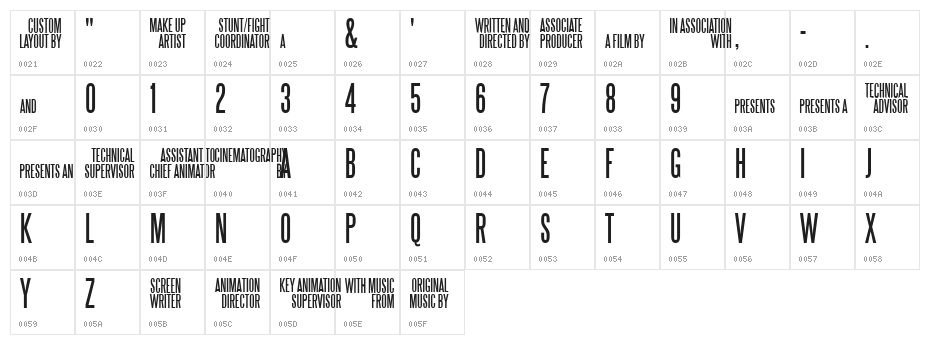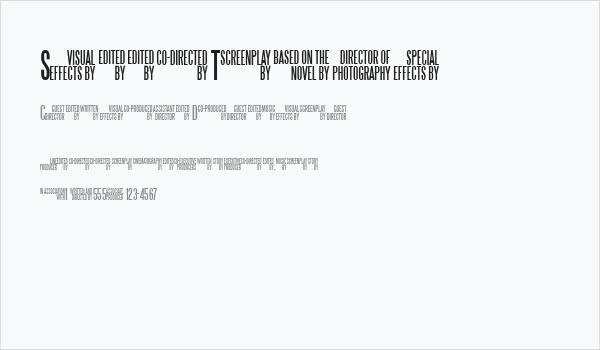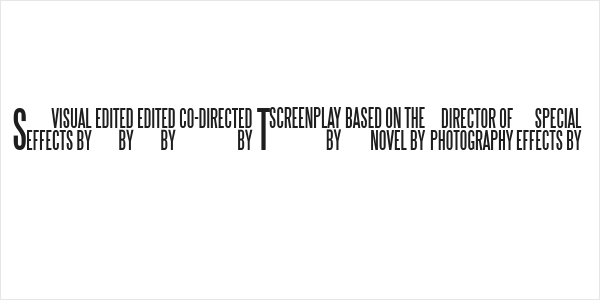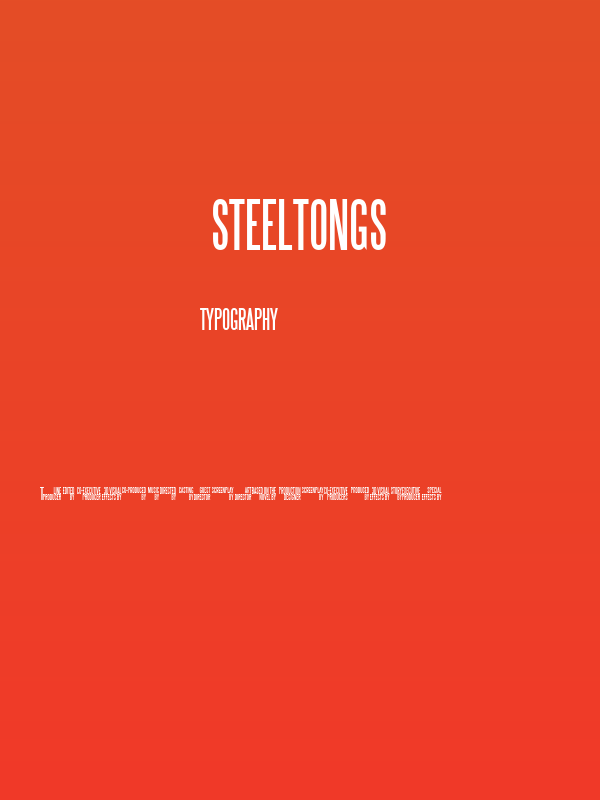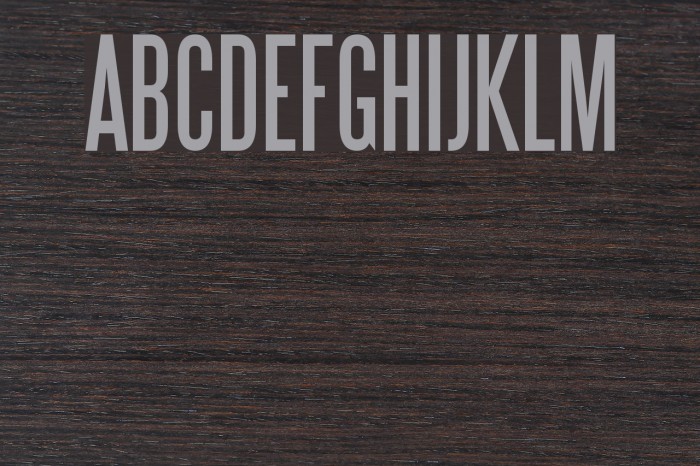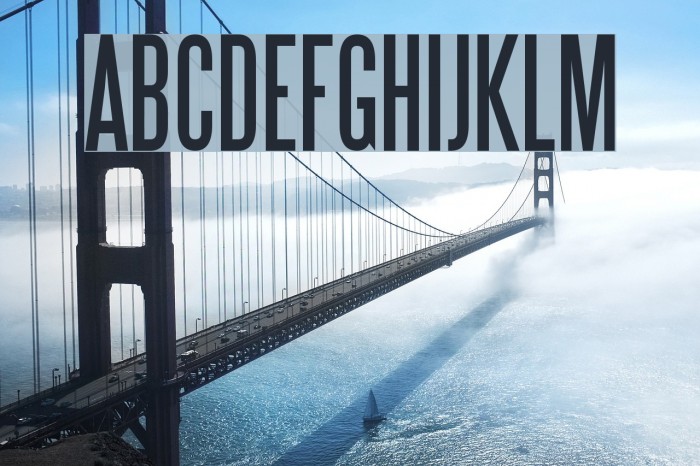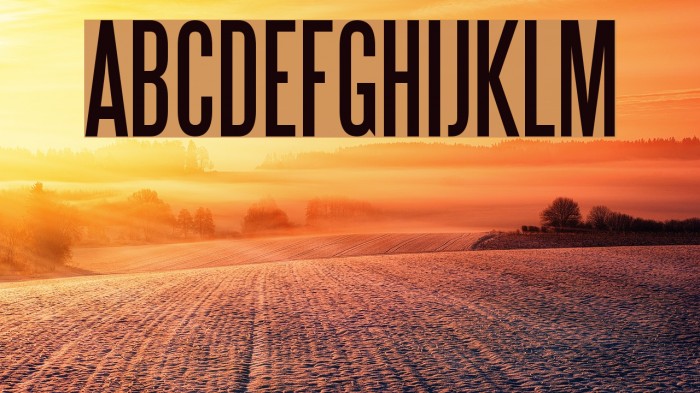
SteelTongs Font
SteelTongs Description
This font is a bold, condensed sans-serif typeface with a strong and impactful presence. The uppercase letters are tall and narrow, creating a sense of authority and modernity. The lowercase letters maintain the same condensed style, ensuring consistency across different text sizes. The numerals are clear and easy to read, matching the overall boldness of the typeface. Special characters are designed to complement the alphabet, maintaining the same weight and style. This font is ideal for projects that require a strong visual impact, such as movie posters, headlines, and branding materials.
| Proposed Projects | Ideal for movie posters, headlines, branding, and any project requiring a strong visual impact. |